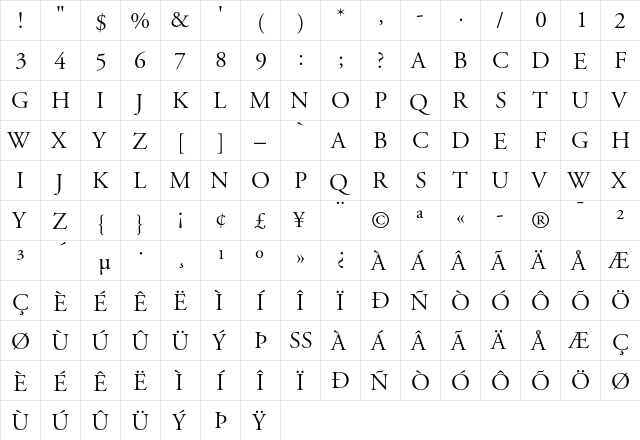
Adobe Garamond Titling Capitals
Design Context for Adobe Garamond Typeface
Adobe Garamond is a composed and adaptable typeface that performs quietly and consistently across a wide range of design contexts.